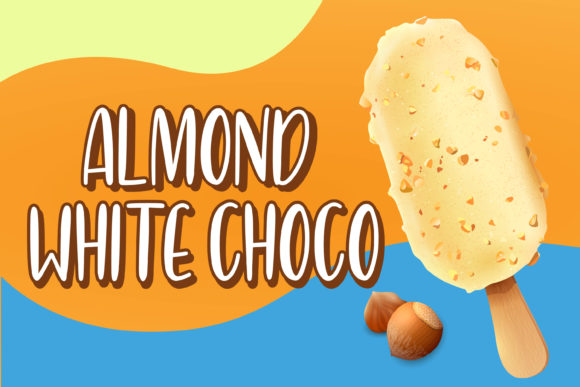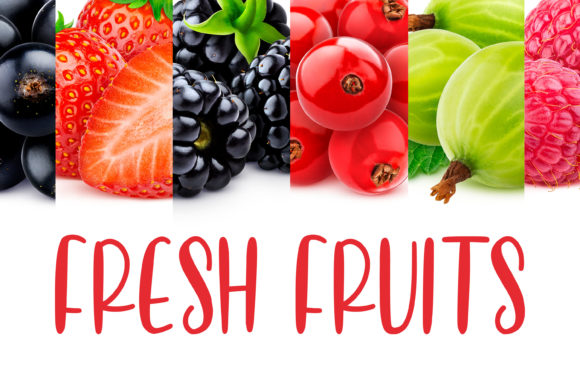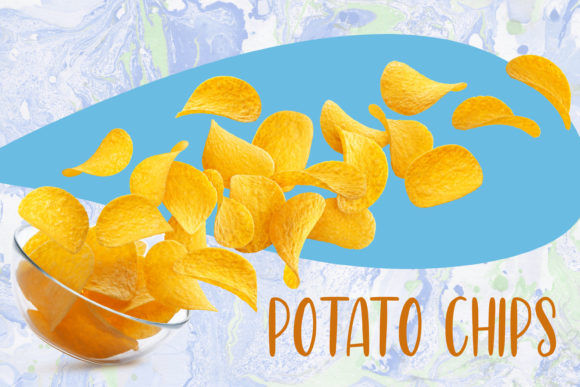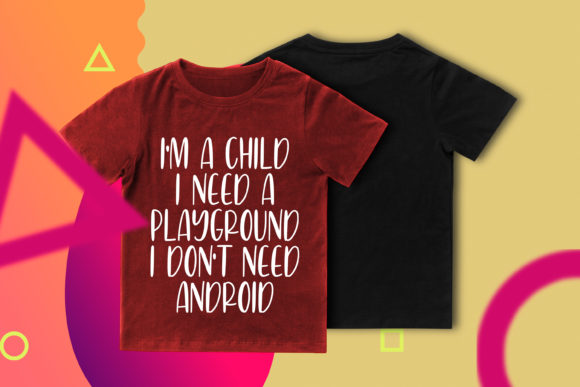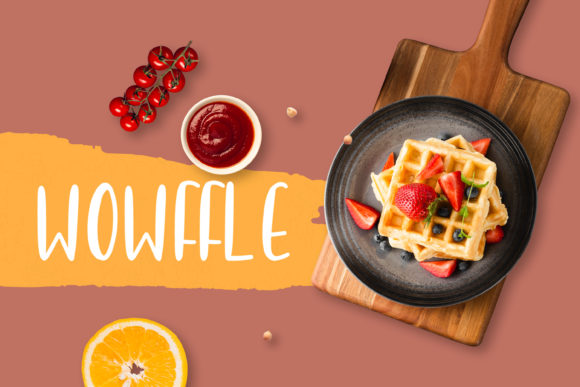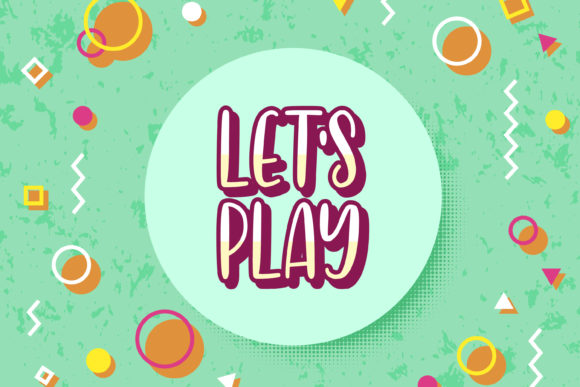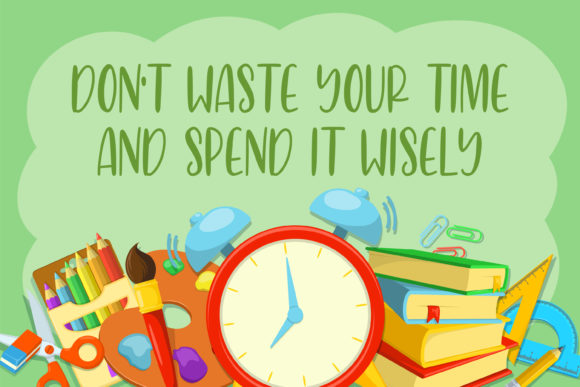
Grumbear Font
About Grumbear Font
Grumbear is sweet and playful, but also elegant. This versatile script font has a wide range of applications ranging from greeting cards to kids’ crafts, and is guaranteed to add a sweet touch to your next design.